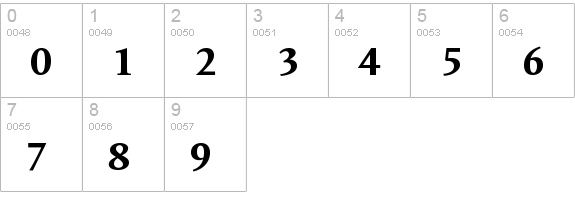
DTLAlbertinaT Bold is a strong, high-contrast variant in the DTLAlbertinaT typeface family \xE2\x80\x94 well suited to headlines, attention-grabbing titles, and strong calls-to-action.
DTLAlbertinaT Bold is a stylish and modern typeface that exudes confidence and sophistication. With its bold curves and strong lines, this font is perfect for making a statement in any design project. Whether you're creating a logo, heading, or poster, DTLAlbertinaT Bold will grab the attention of your audience and leave a lasting impression. The best part? DTLAlbertinaT Bold is completely free to download at FontsMarket.com. You can easily access this versatile font and enhance your creative projects without any cost. Don't miss out on the opportunity to add DTLAlbertinaT Bold to your font collection and take your designs to the next level. Download it now and let your creativity shine!